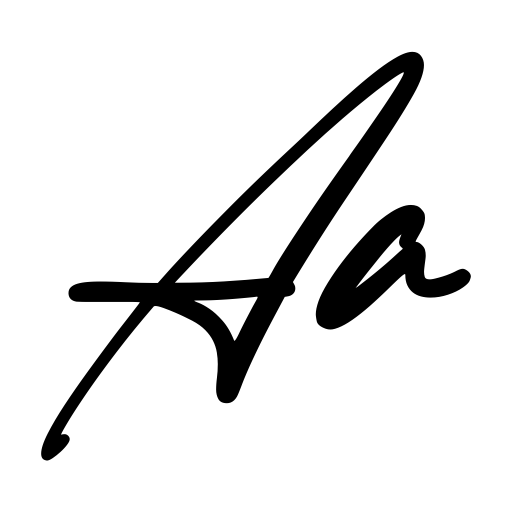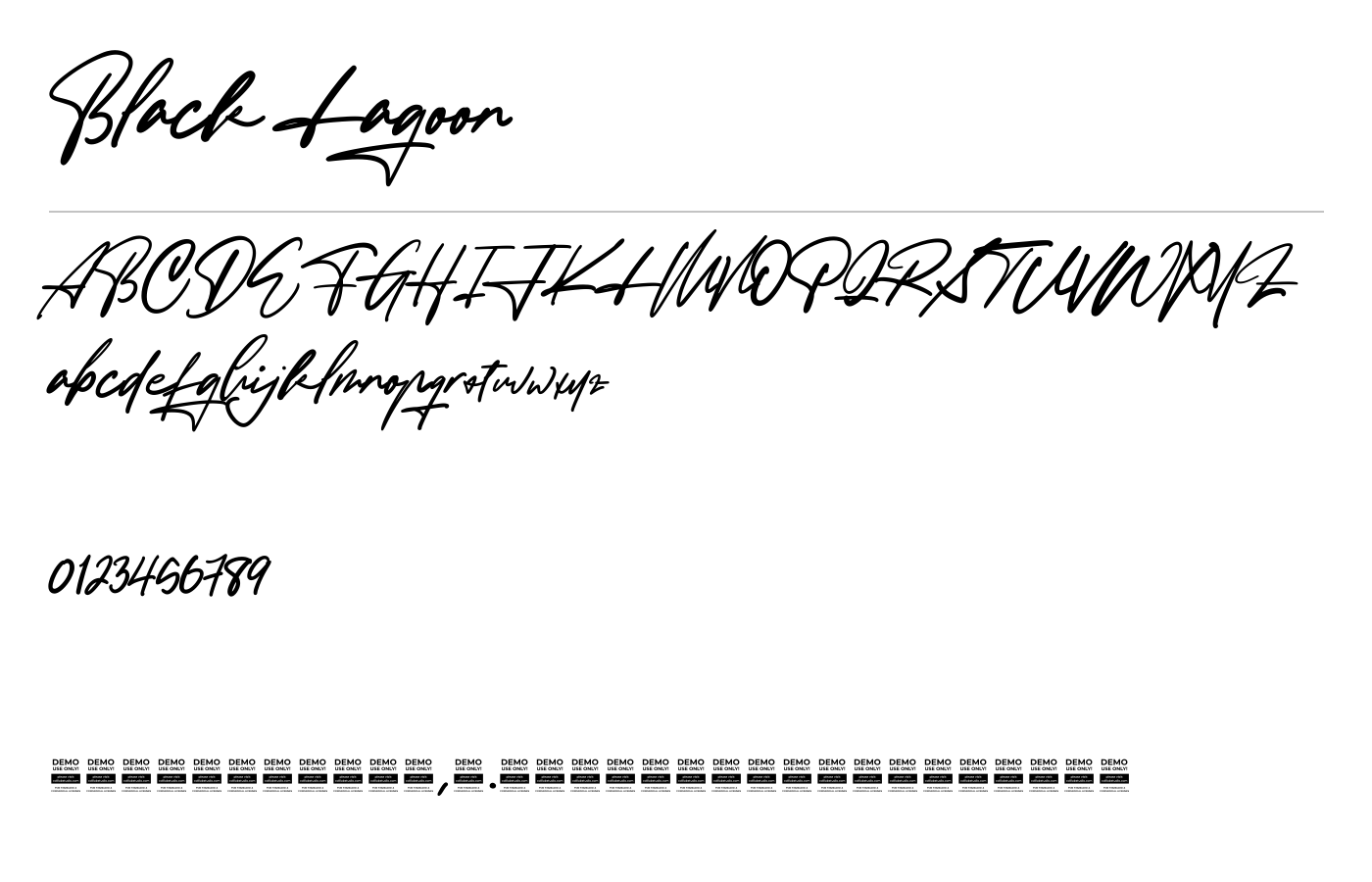
Black Lagoon is a dynamic, handwritten script font that features fluid, energetic strokes with a casual yet sophisticated vibe. Its tall, narrow letterforms and slightly irregular baseline give it a spontaneous, personal touch, making it ideal for creative branding, logos, and stylish editorial projects where a modern, artistic flair is desired.
Black Lagoon Font
About Black Lagoon Font
| Font family | Black Lagoon Font |
| Designer | Colllab Studio |